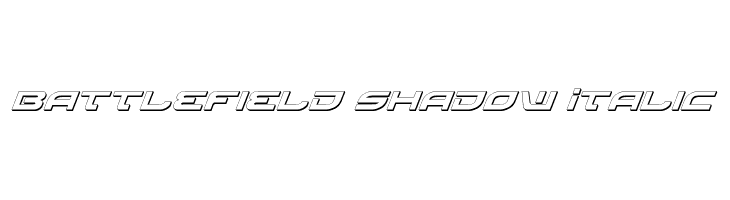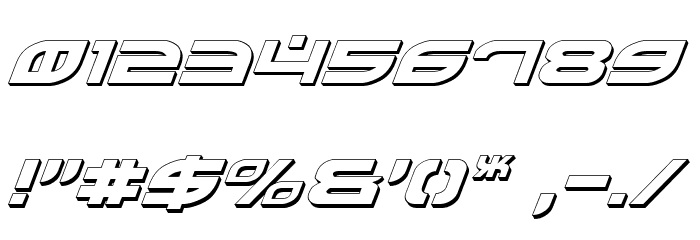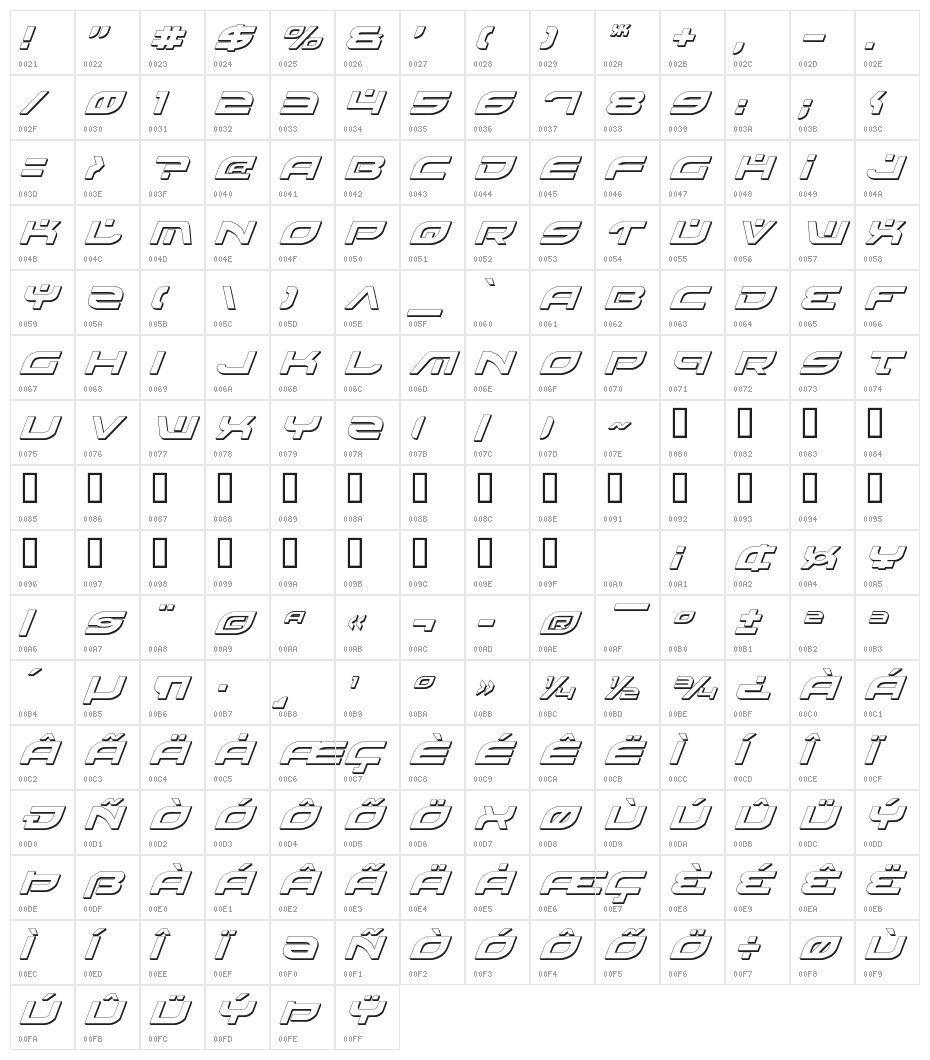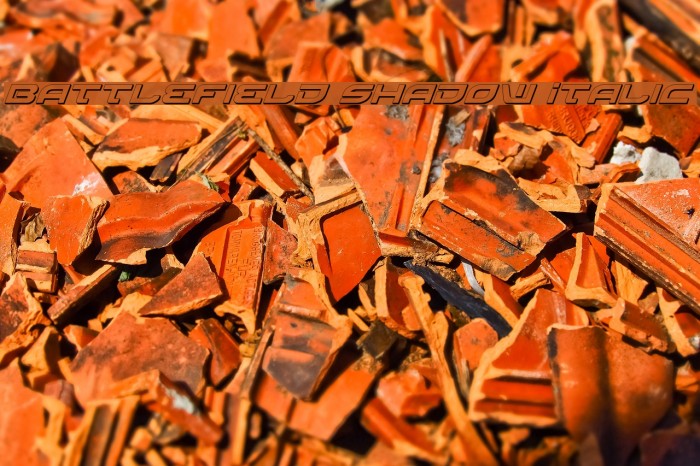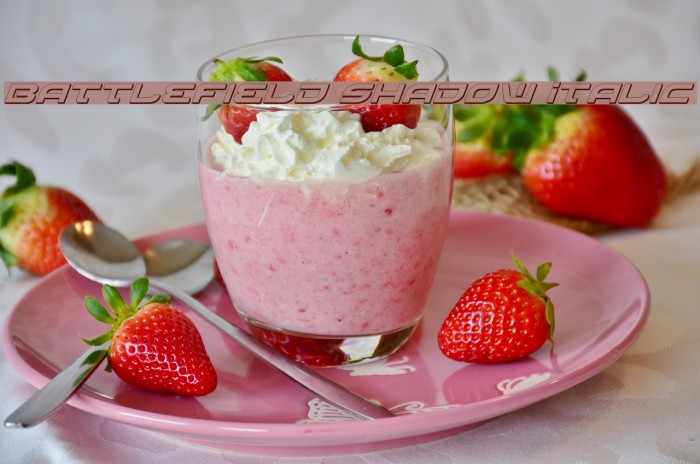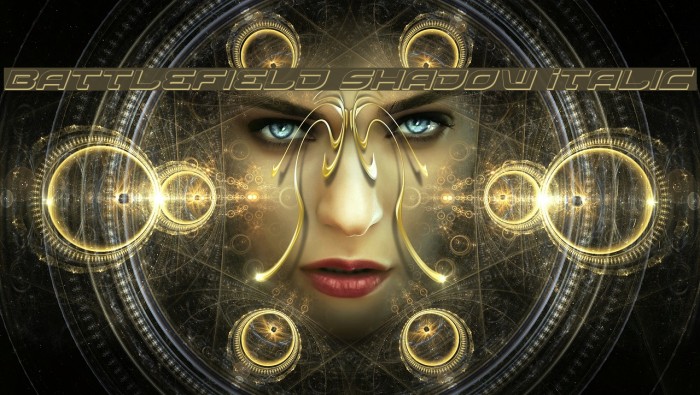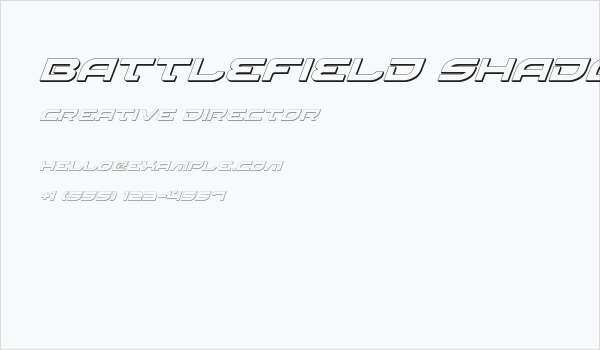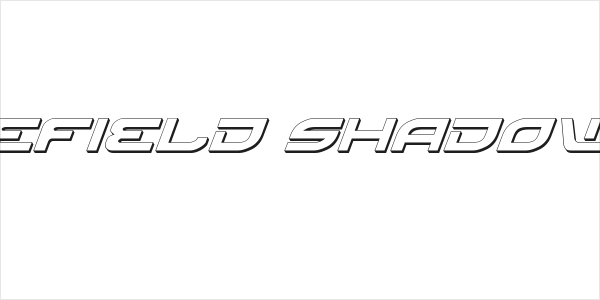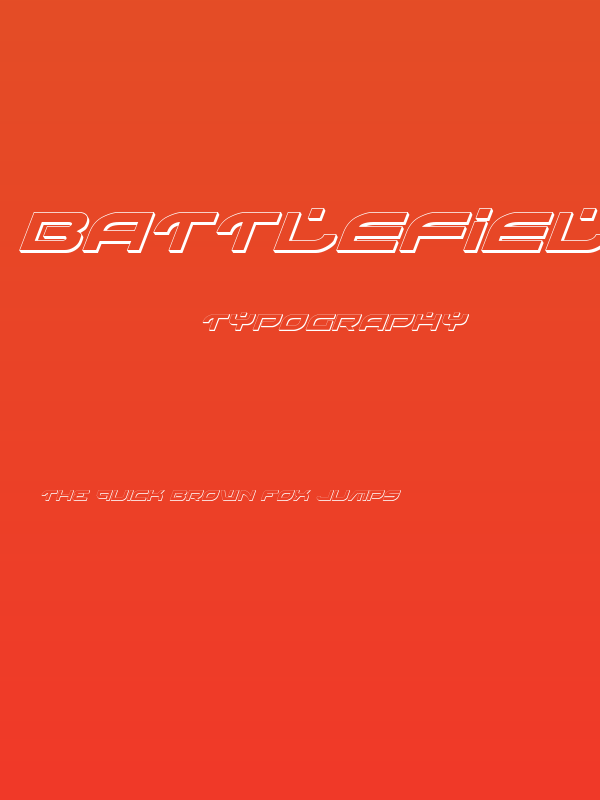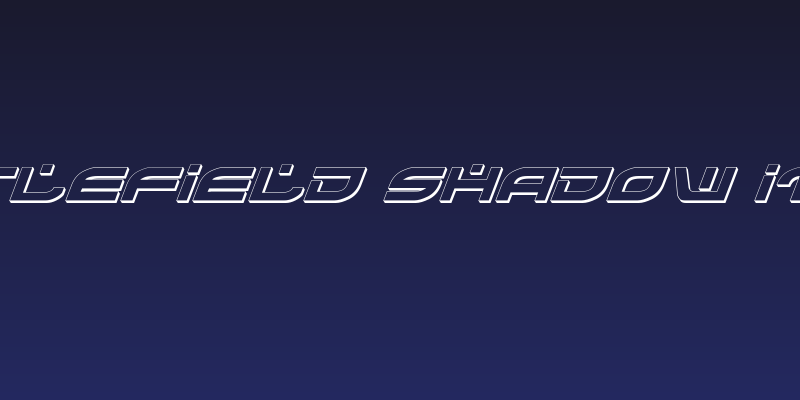
Battlefield Shadow Italic Font
Battlefield Shadow Italic Description
This font features a bold, futuristic design with a distinct shadow effect that gives it a three-dimensional appearance. The characters are italicized, adding a dynamic and forward-leaning aspect to the overall style. Each letter is crafted with precision, showcasing sharp angles and clean lines that contribute to its modern aesthetic. The uppercase and lowercase letters maintain a consistent style, ensuring uniformity across different text applications. The numerals and special characters are designed to match the bold and shadowed theme, making them stand out effectively. This font is ideal for projects that require a strong, impactful visual presence.
| Proposed Projects | Ideal for video game titles, sci-fi movie posters, technology branding, and sports team logos. |